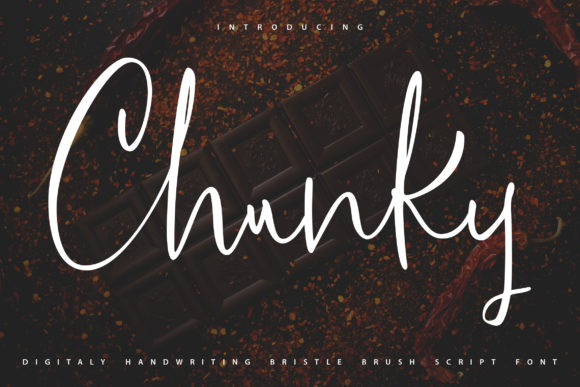
Chunky Font
Chunky is a ravishing and cursive script font. It has a graceful touch and it will most certainly have an unforgettable impact on your creative ideas. Chunky is PUA encoded which means you can access all of the glyphs and swashes with ease!